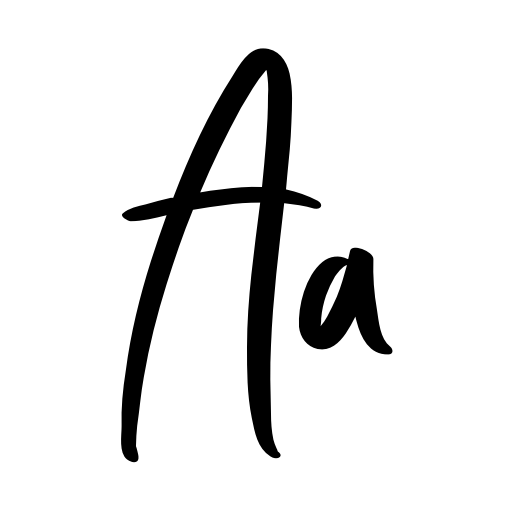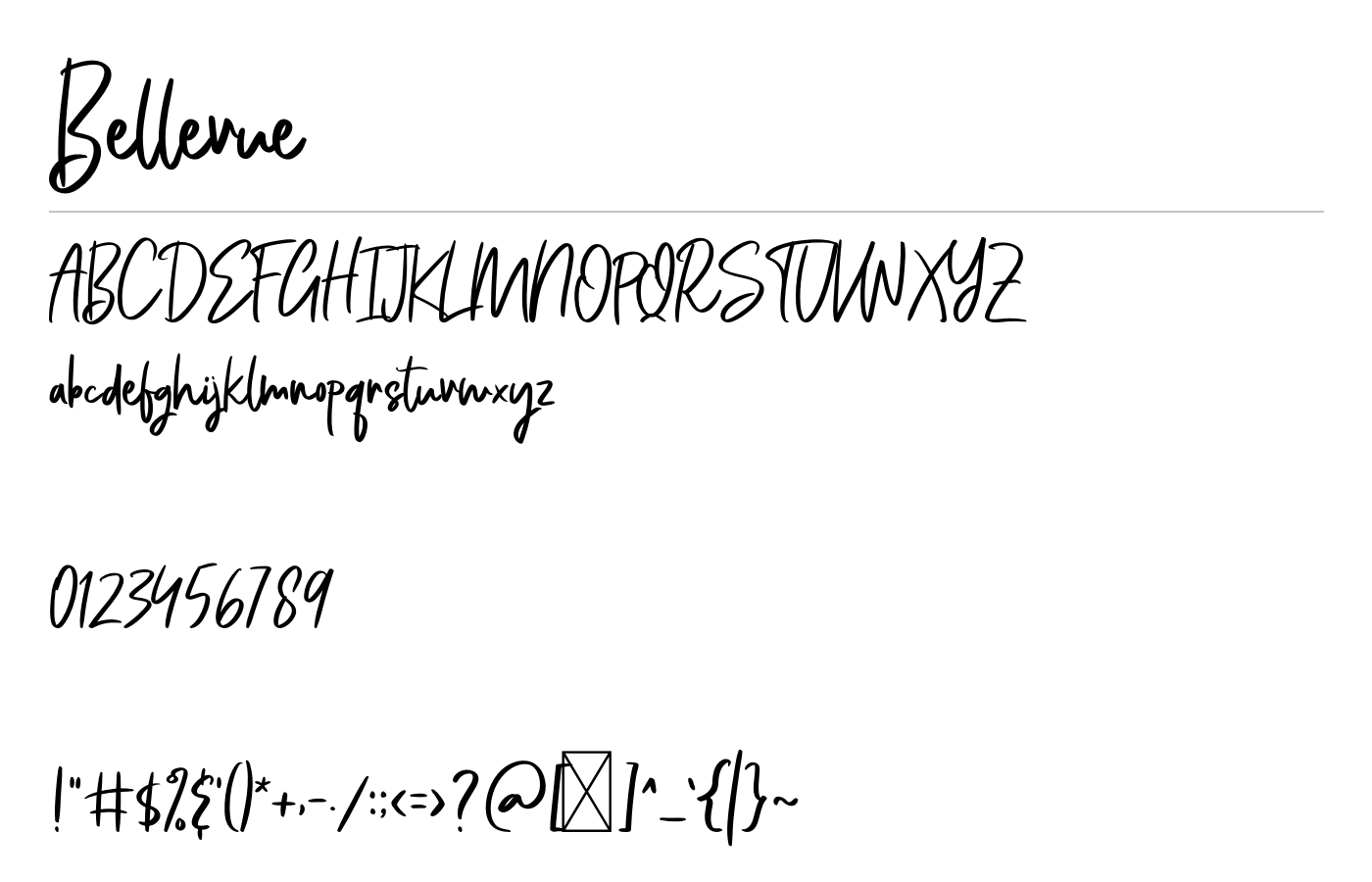
Bellevue is a playful and casual handwritten script font with a light, airy feel, featuring tall, narrow letterforms and smooth, flowing strokes that create a friendly and approachable personality. Its lively style works beautifully for creative branding, invitations, social media graphics, and informal headlines, adding a personal, human touch wherever a warm and relaxed vibe is desired.
Bellevue Font
About Bellevue Font
| Font family | Bellevue Font |
| Designer | Muhammad Husni Haikal |